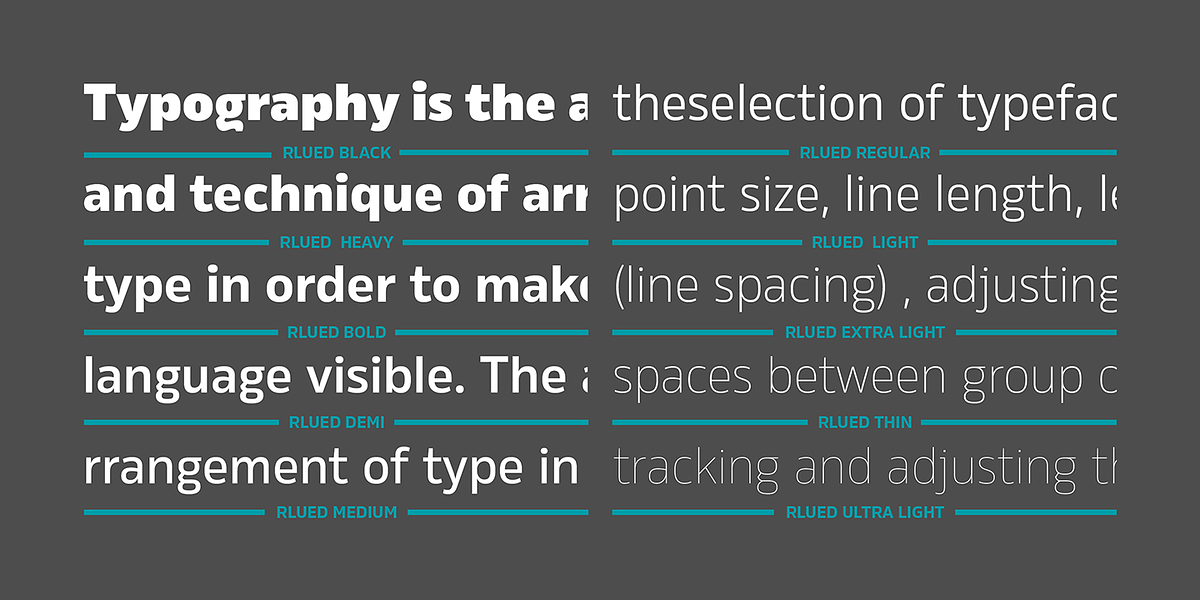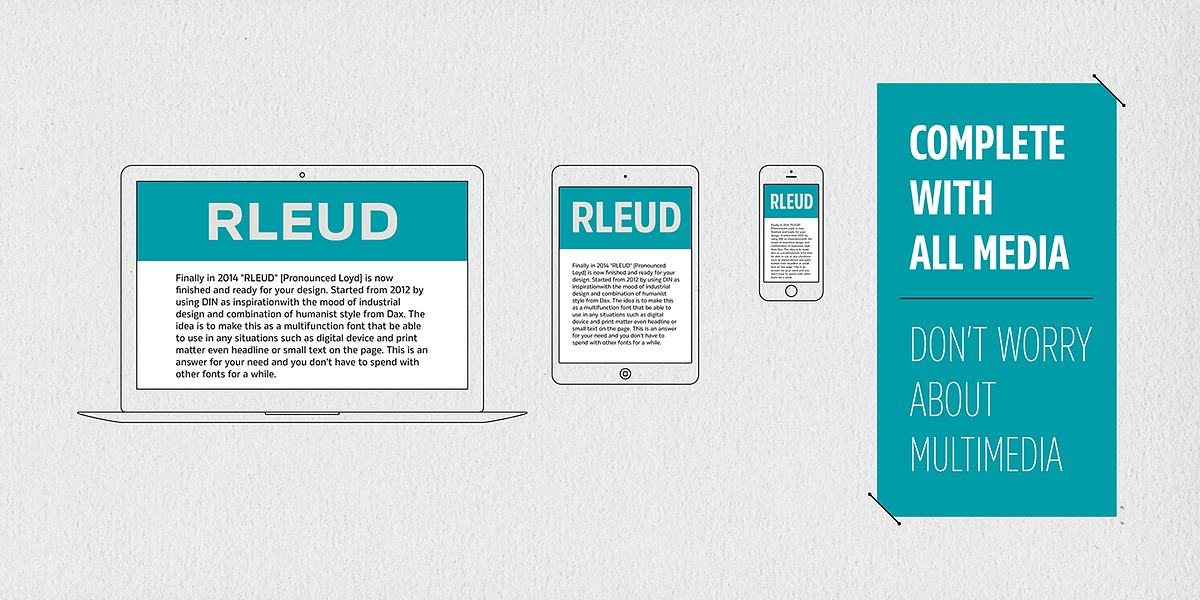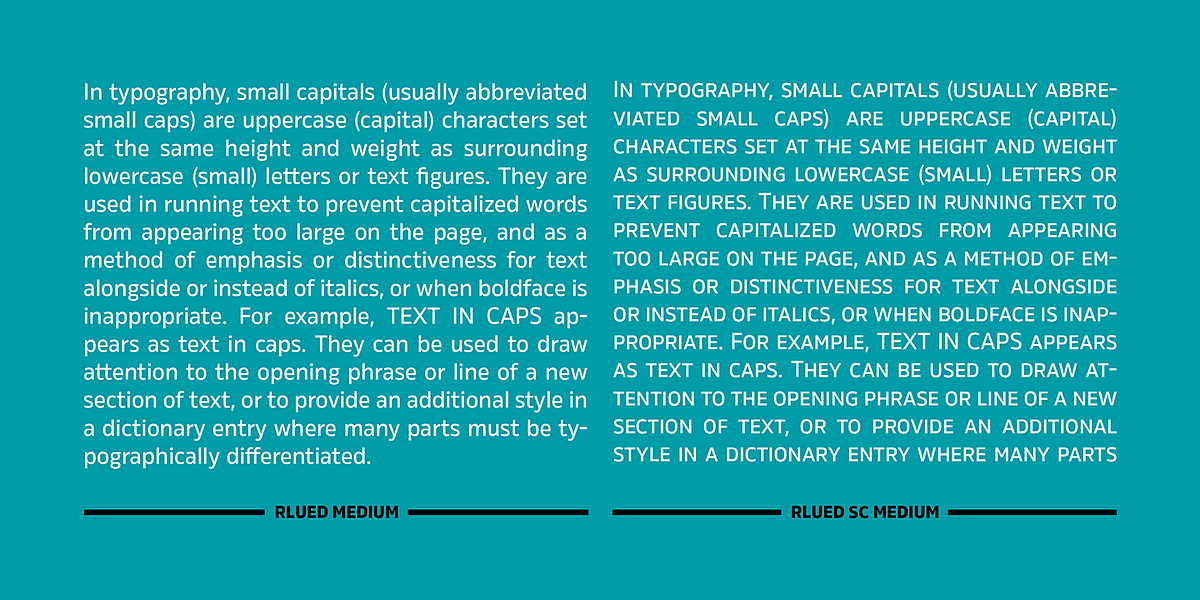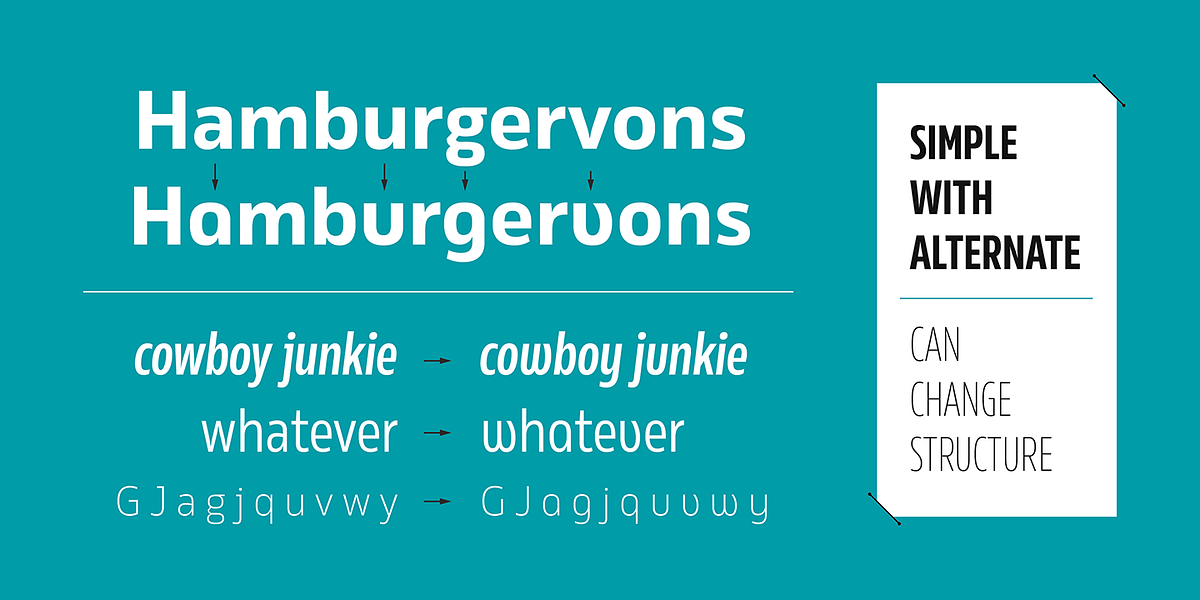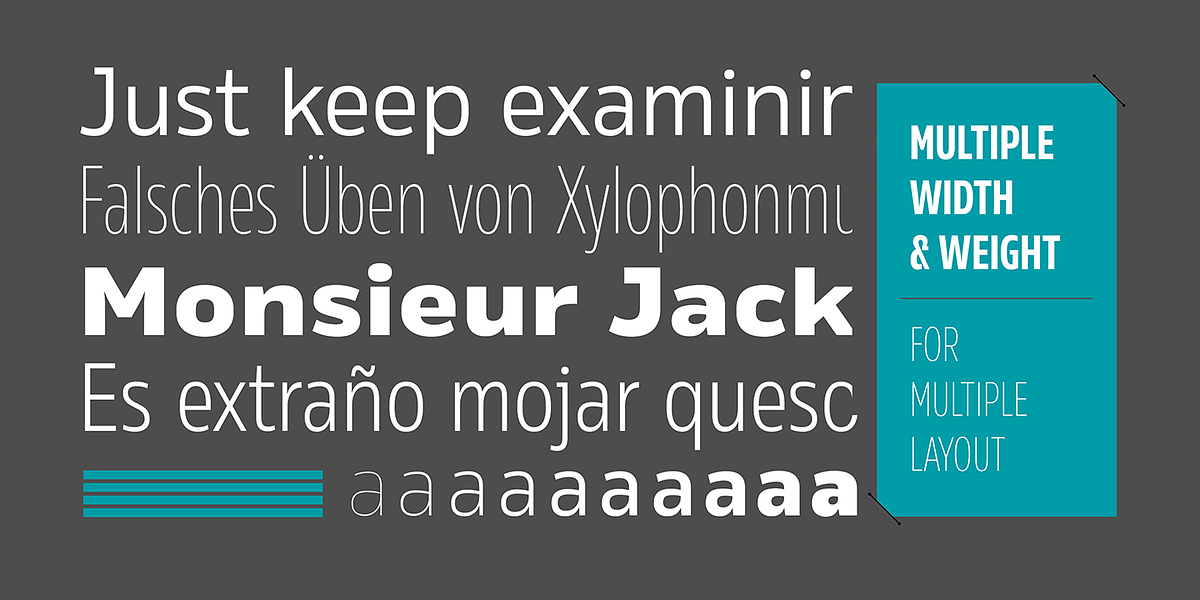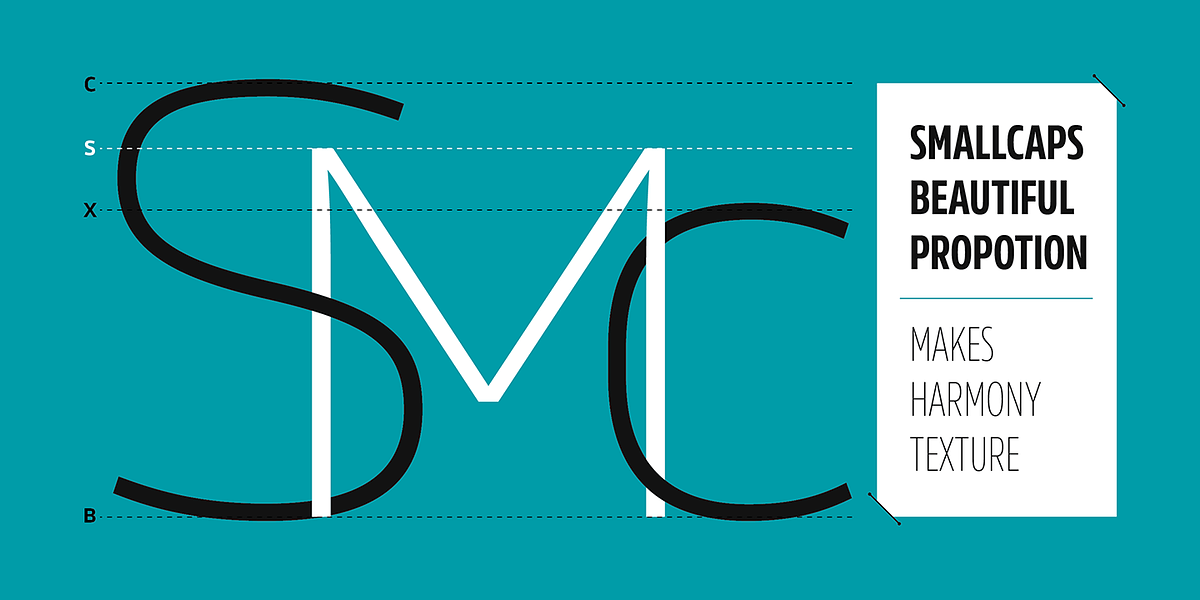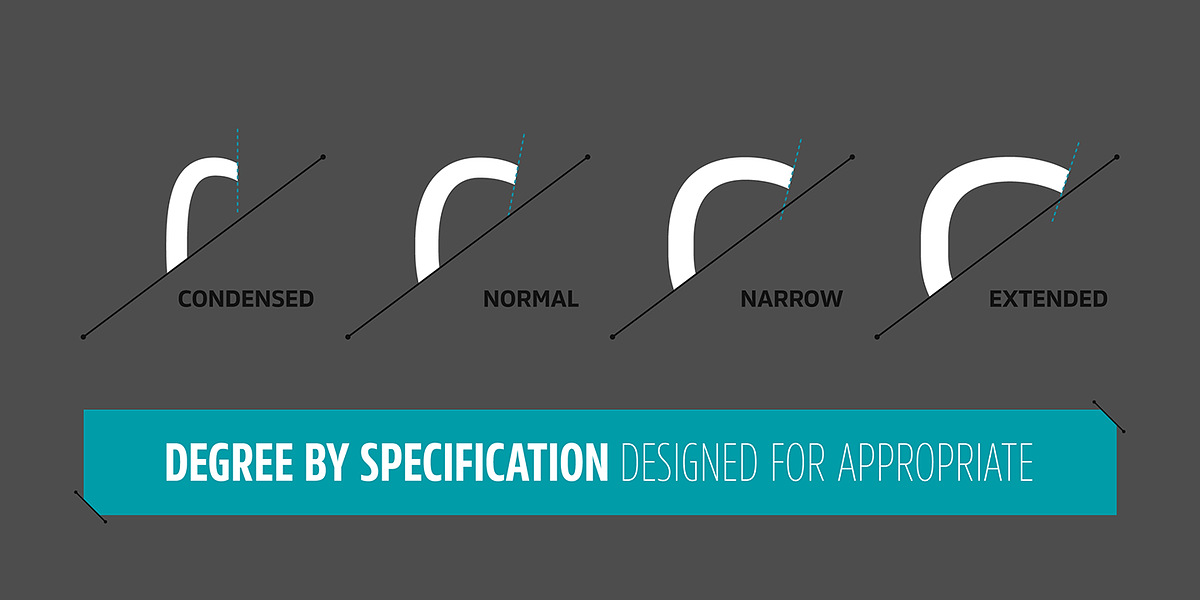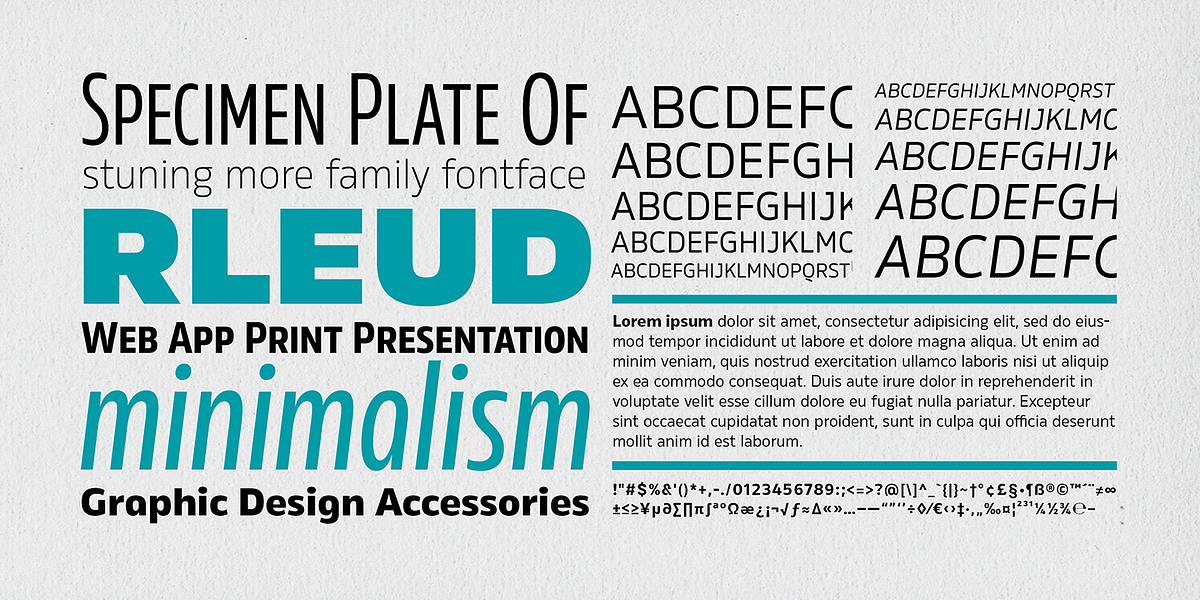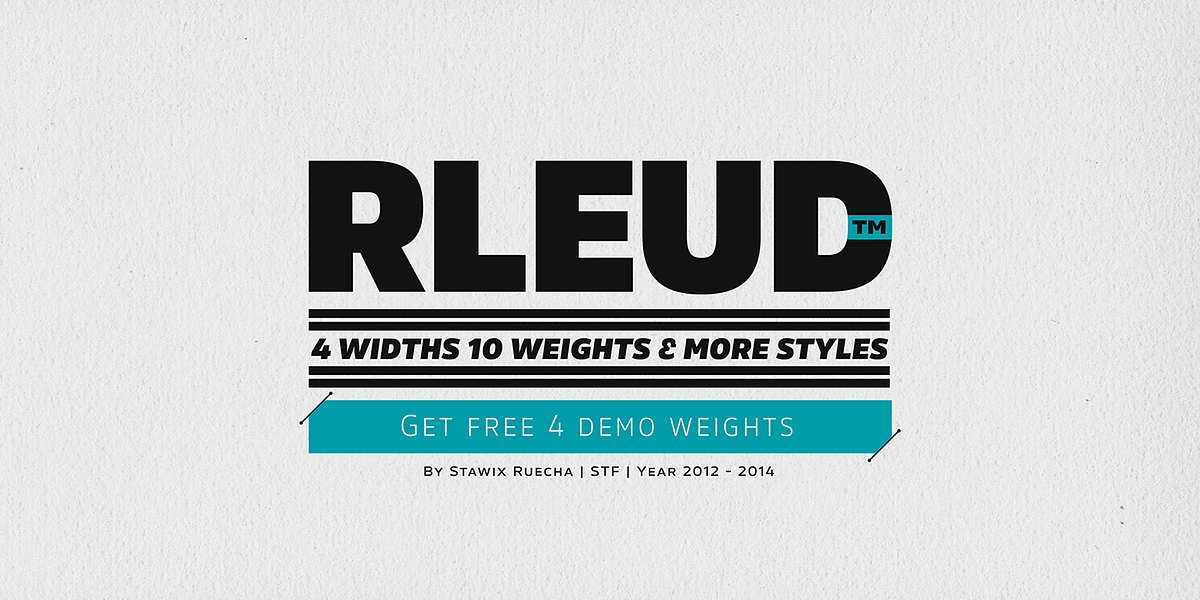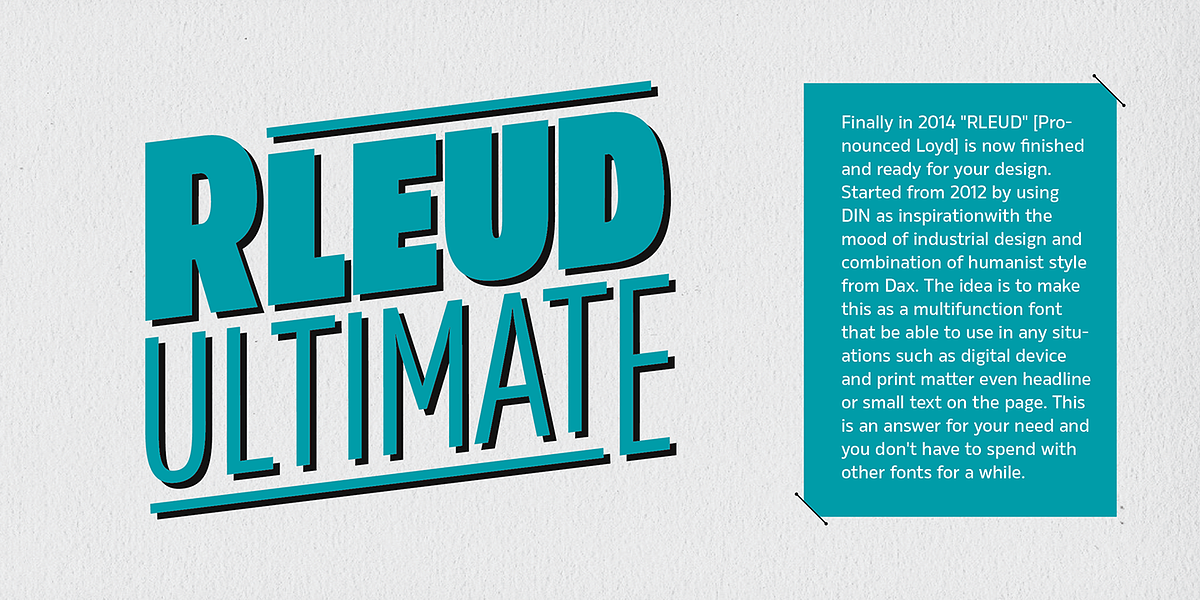
Rleud Narrow
RLEUD is a comprehensive grotesque sans-serif font family designed for versatility. Inspired by DIN and the humanist style of Dax, it offers 10 weights with small caps, italics, and four widths (Normal, Condensed, Narrow, Extended). OpenType features include alternate styling letters, tabular numbers, and ligatures. A free demo version with four weights is available.